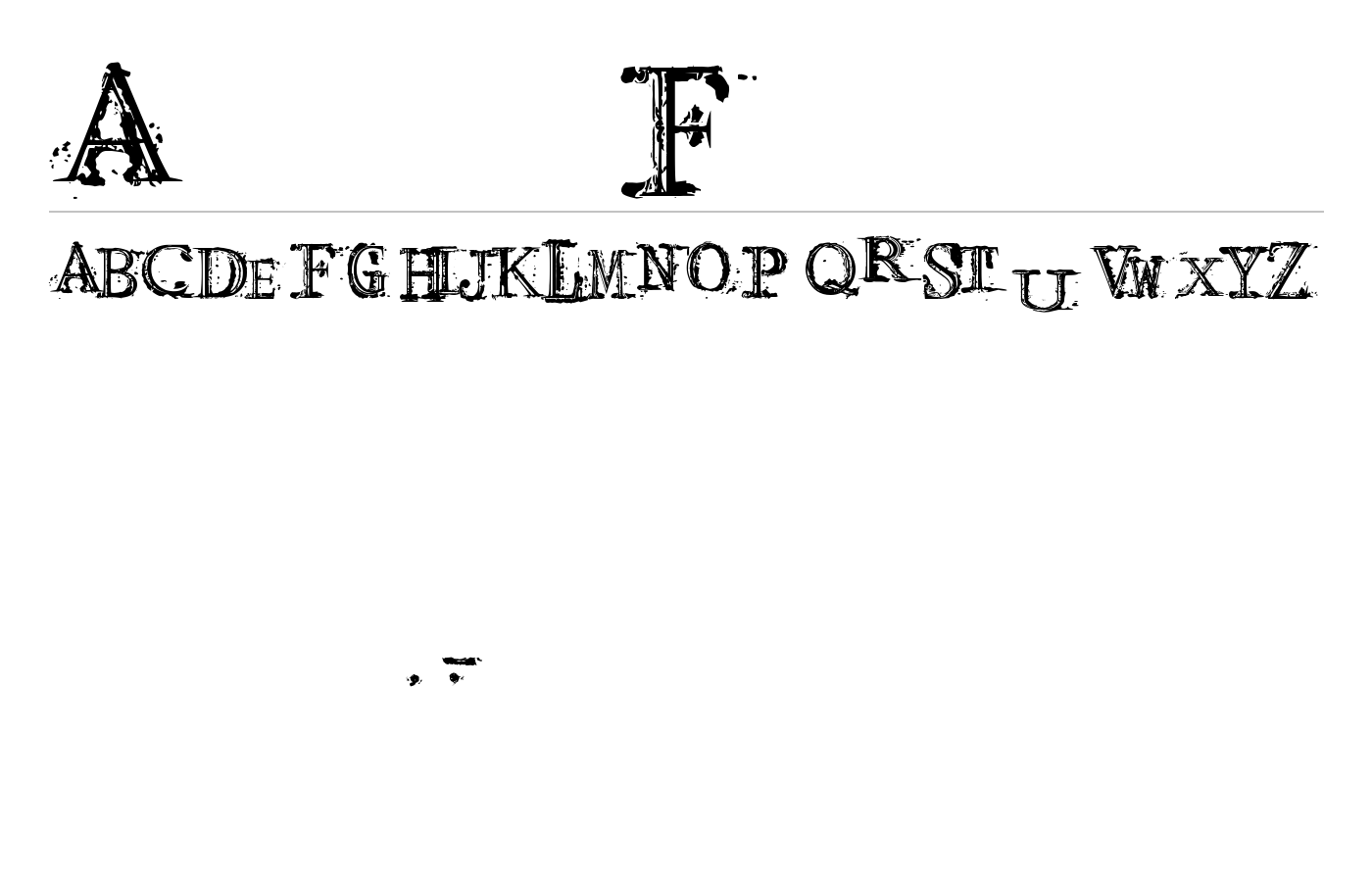
Arcade Fire is a distressed serif font that combines vintage elegance with a worn, textured effect, giving it a unique, gritty character. Its medium weight and high contrast strokes with sharp serifs make it ideal for creating bold, eye-catching headlines or logos that want to evoke a sense of rugged sophistication and creative edge. This font works well in branding, posters, and editorial designs where a blend of classic style and modern, unconventional flair is desired.
Arcade Fire Font
About Arcade Fire Font